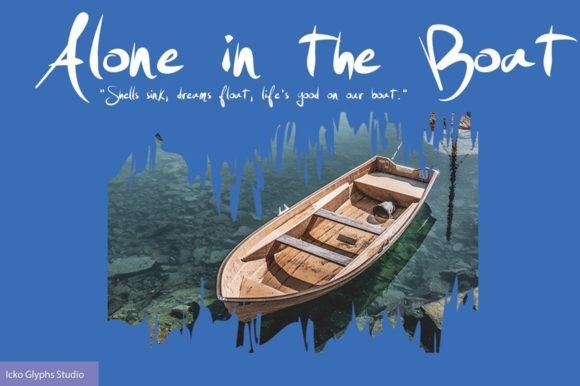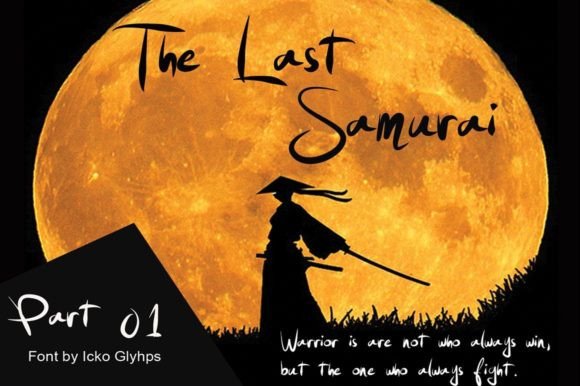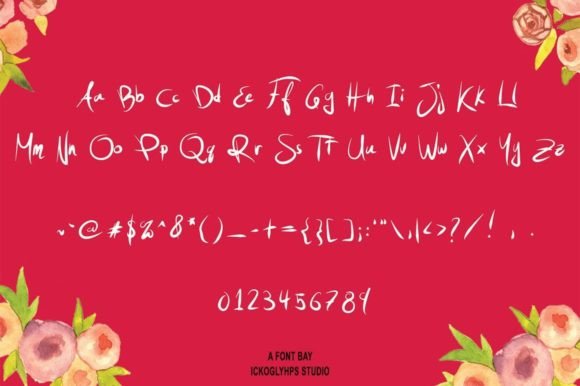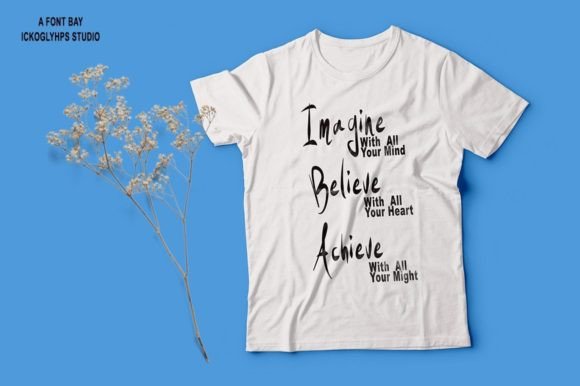
Ninja Boys Font
About Ninja Boys Font
“Ninja Boys” is introduced as a modern and fun handwritten font, crafted to add a playful touch to various creative projects. Its contemporary and lively nature makes it a versatile choice for applications such as games, quotes, feminine or organic logos, small business branding, business cards, packaging, and a myriad of other creative ideas.
The fun and modern handwritten style of Ninja Boys lends itself well to a range of design contexts. Whether you’re creating graphics for games, designing inspirational quotes, or working on branding for a small business, this font injects a sense of energy and playfulness into your designs.
The versatility of Ninja Boys is evident in its potential applications. The font’s ability to adapt to different design needs makes it suitable for various branding elements, including feminine or organic logos. The handwritten quality adds a personal and approachable feel, making it well-suited for businesses or projects that aim to convey a friendly and modern image.
Ninja Boys’ potential extends to business cards, packaging, and other creative ideas, where its lively and contemporary style can contribute to a visually engaging and memorable presentation. The font’s ability to bring a sense of fun and uniqueness makes it a valuable asset for designers seeking to create standout designs.
In summary, Ninja Boys is not just a font; it’s a modern and fun design tool ready to enhance your creative ideas. Whether you’re working on games, quotes, logos, or other projects, let Ninja Boys be the font that adds a playful and contemporary flair, making your designs more dynamic and engaging.